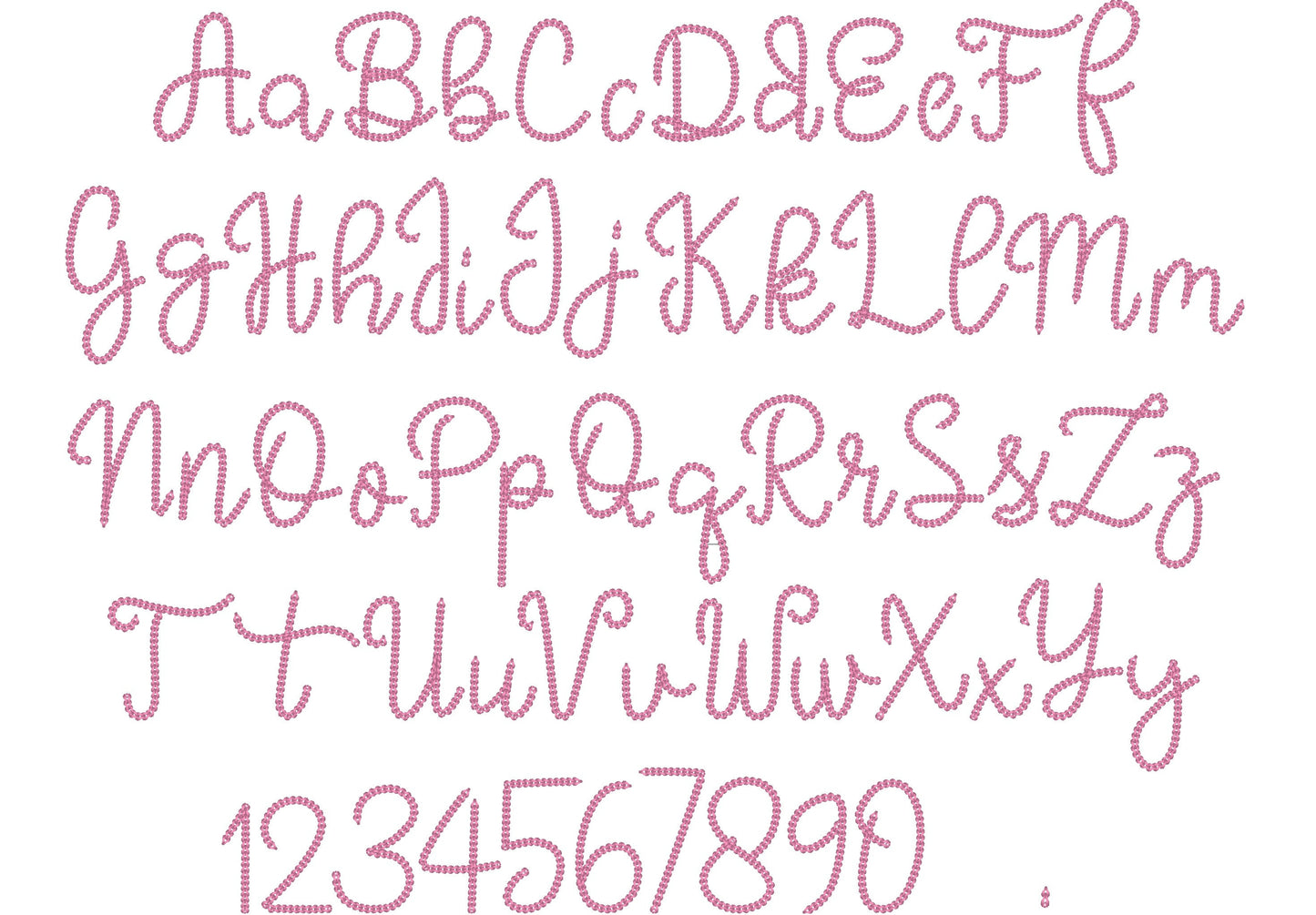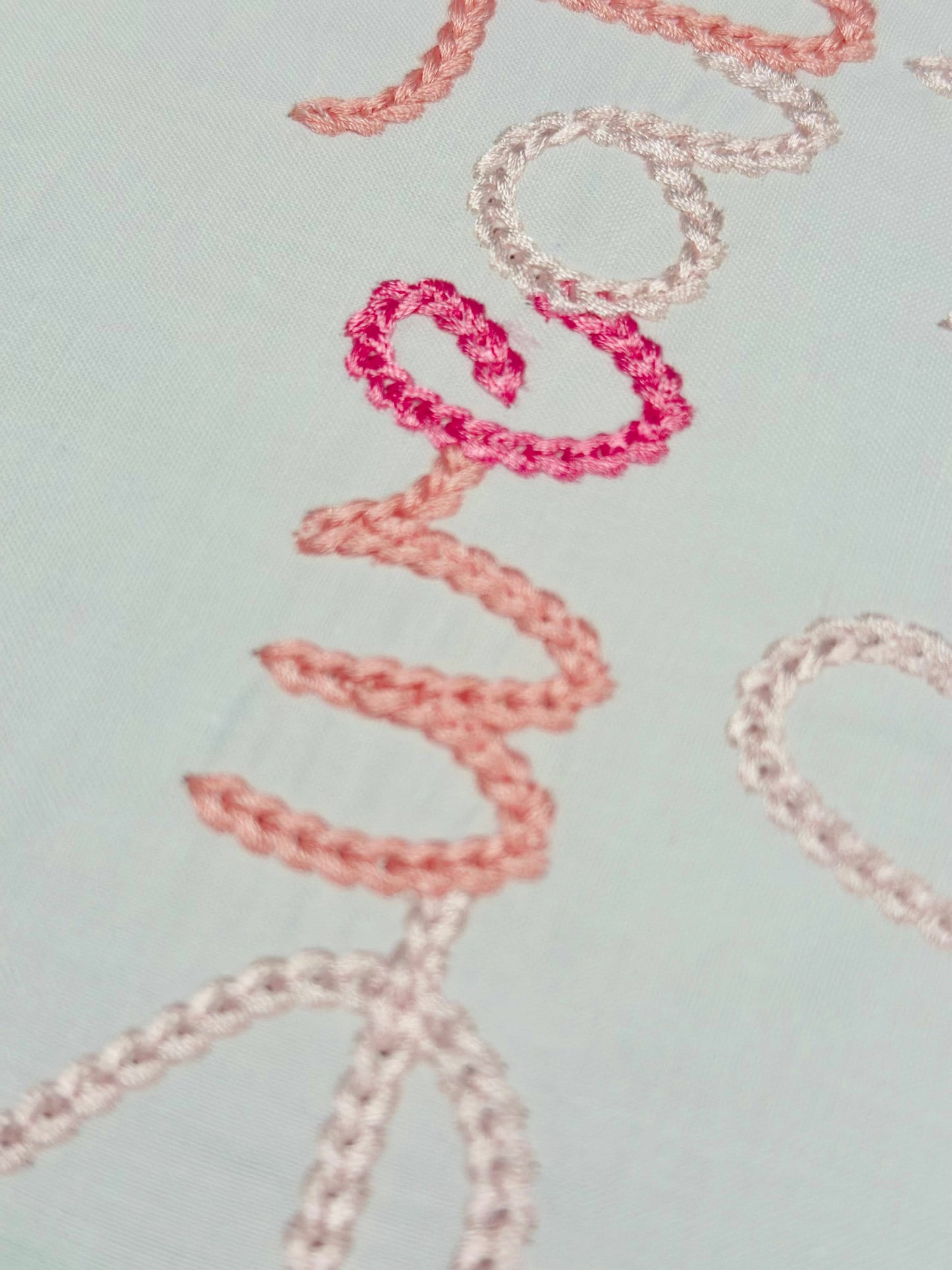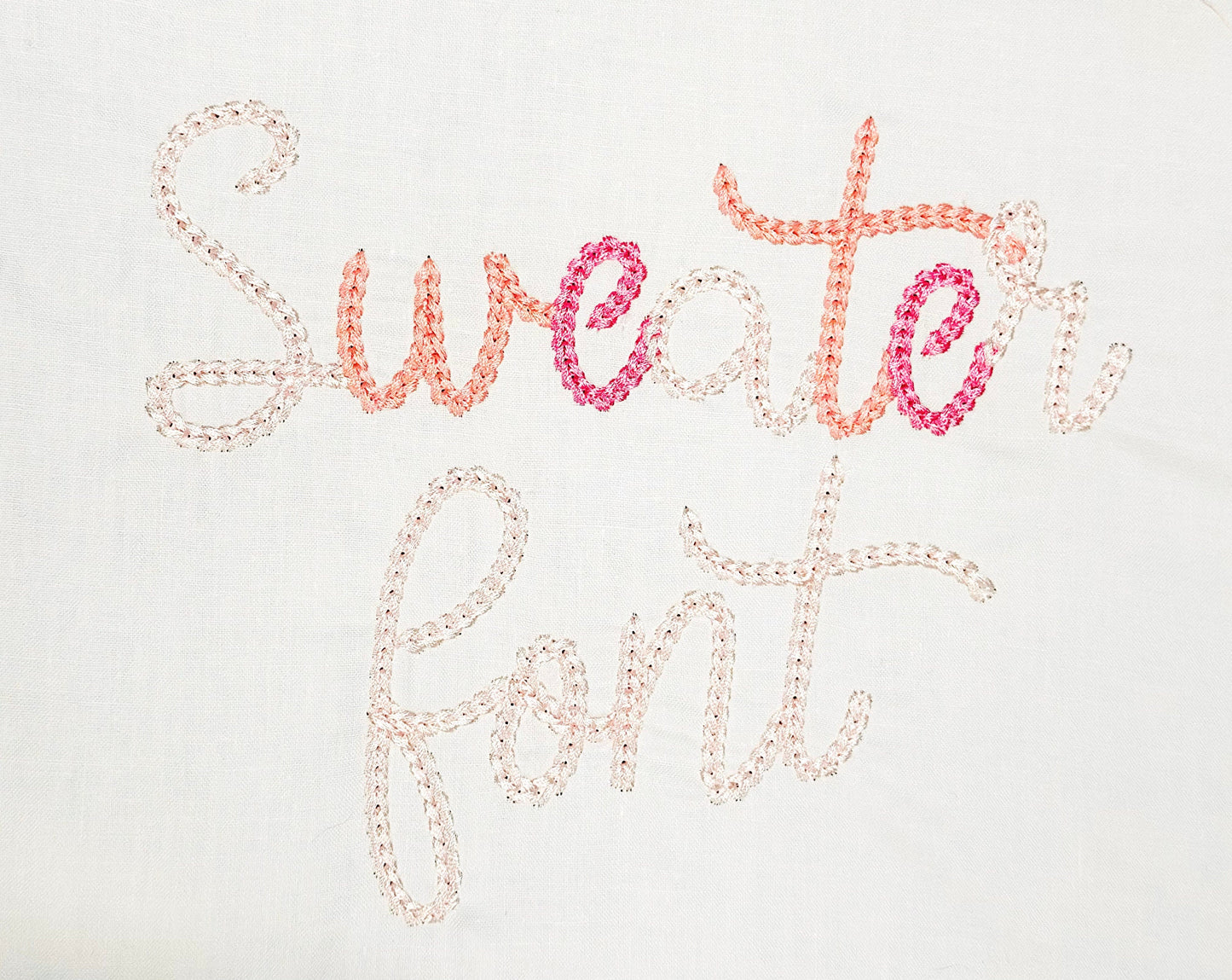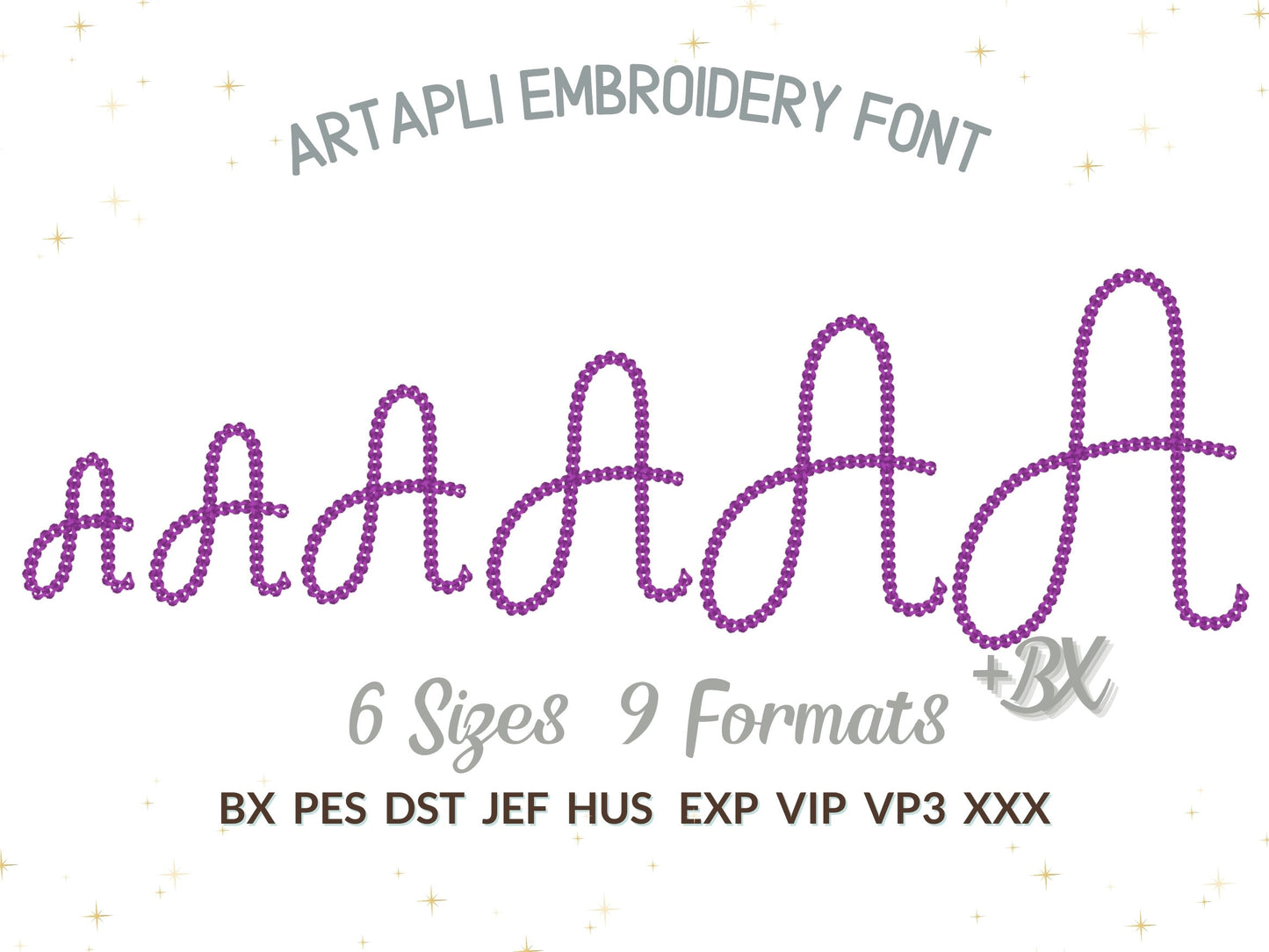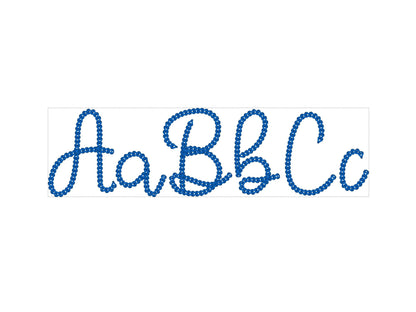
Or click to open the linkA bold, dense chain stitch script that looks hand embroidered, like a name on a cozy knit sweater.
Uppercase and lowercase letters, numbers and a period in six sizes: 2, 2.5, 3, 3.5, 4 and 5 inches.